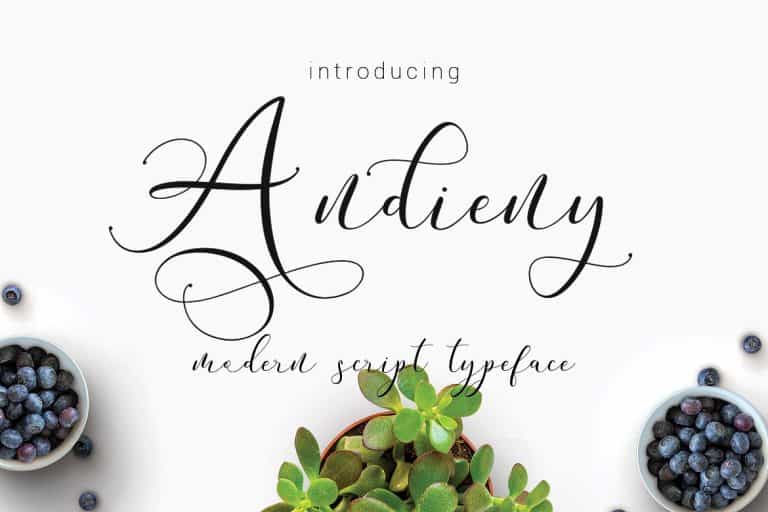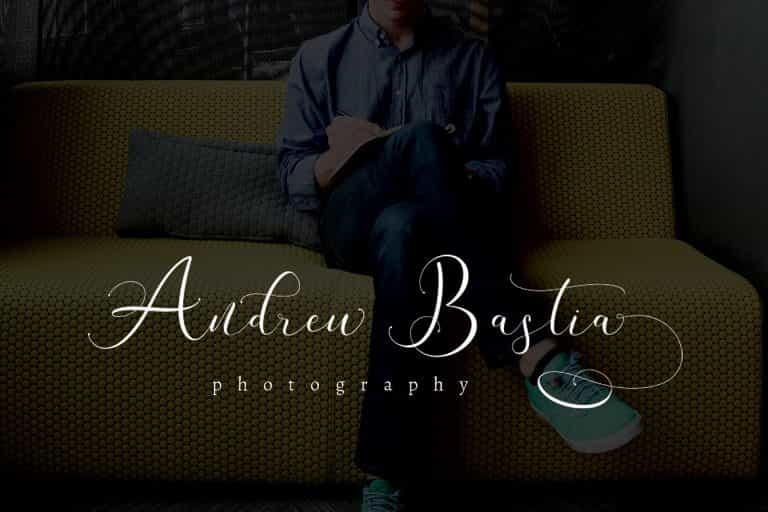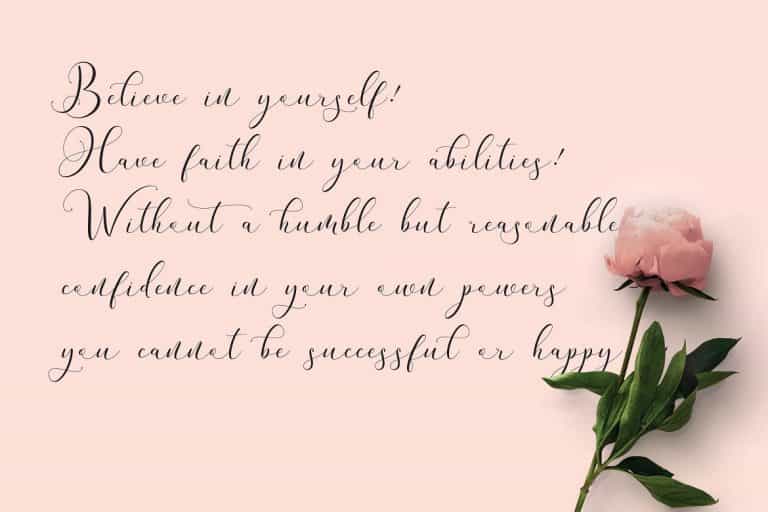
Introducing Andieny Font. Andieny is a modern script font in which every single letter has been meticulously designed to make your text look beautiful. With modern script style this font will perfect for many different project ex: The list of the things that can be done with typography is endless – from quotes, blog headers, posters to weddings, branding and apparel.